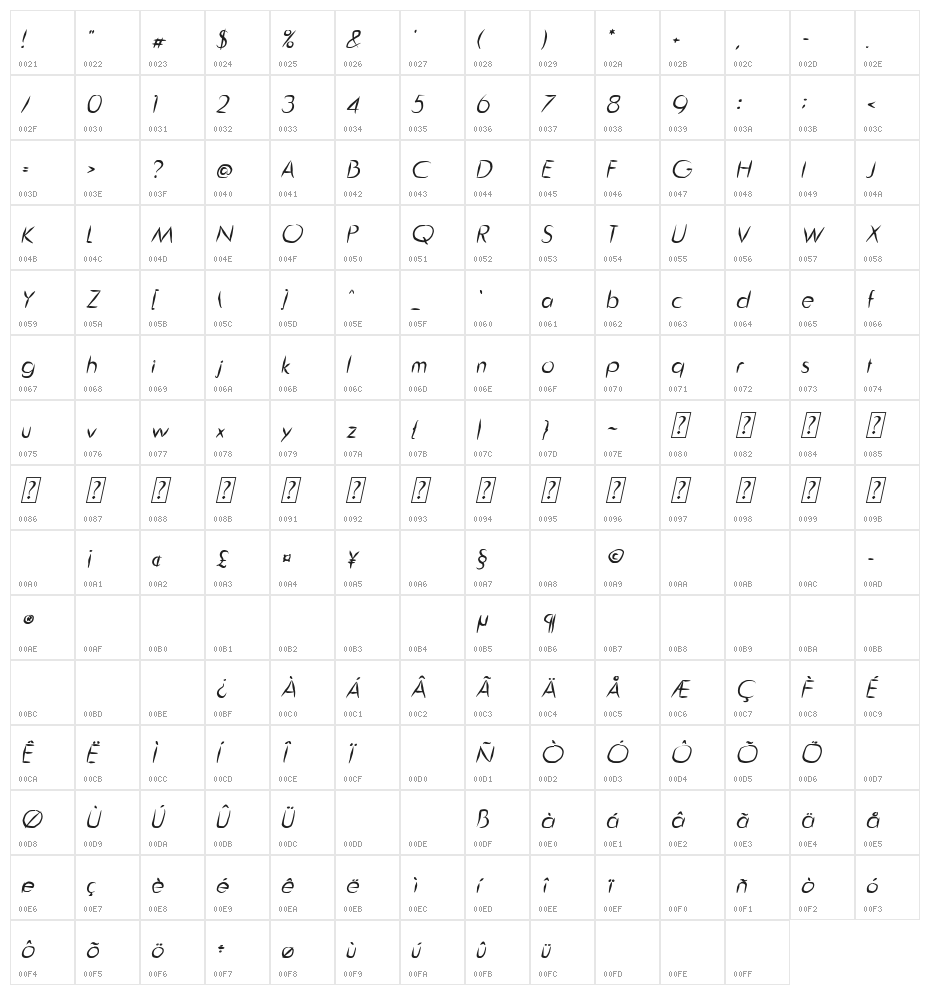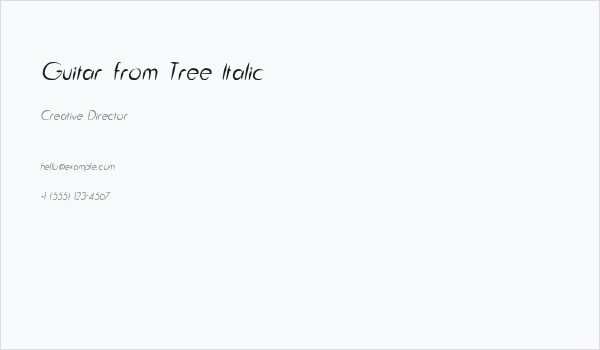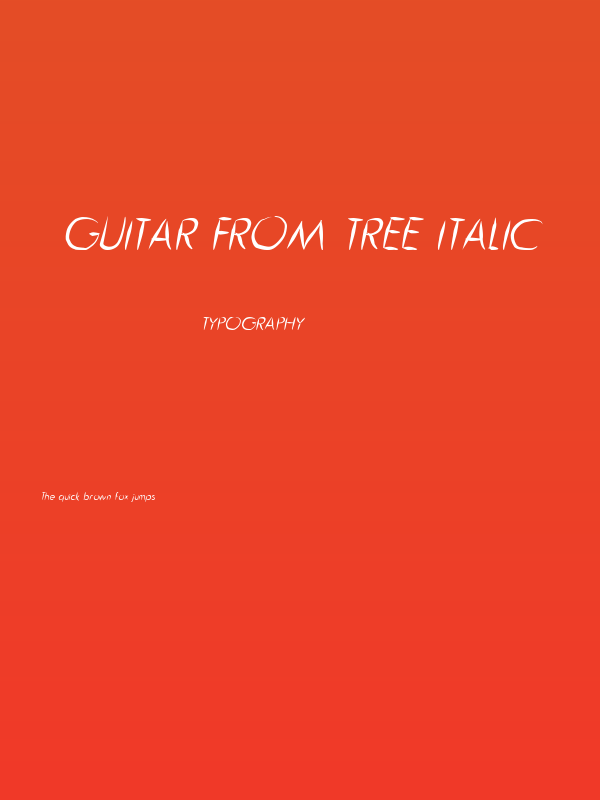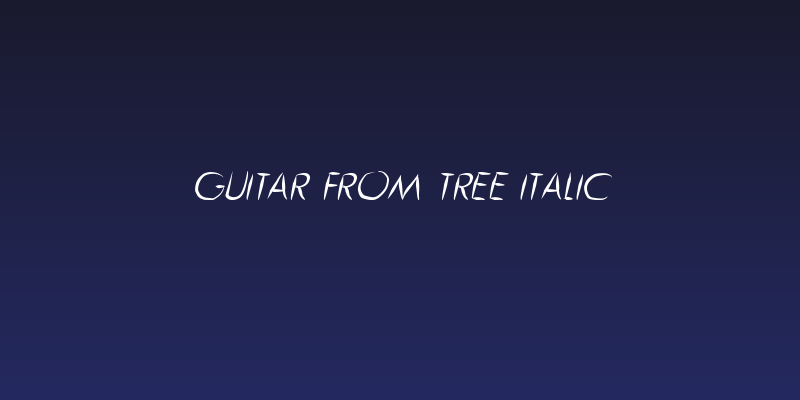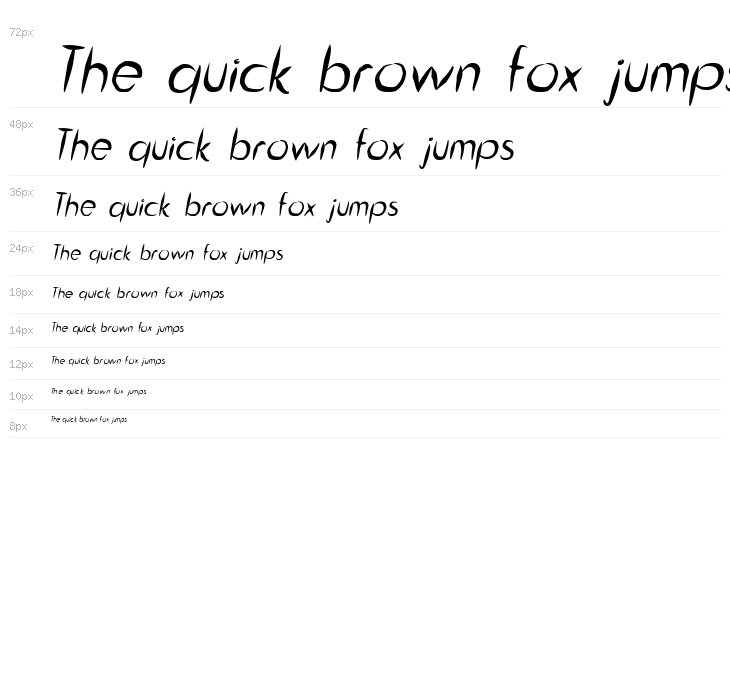
Guitar from Tree Italic Font
Guitar from Tree Italic Description
This font features a dynamic and flowing italic style, characterized by its smooth, curved lines and slightly elongated letterforms. The strokes vary in thickness, creating a sense of movement and energy. The uppercase letters are bold and assertive, while the lowercase letters maintain a consistent flow, enhancing readability. The numerals are distinct and well-balanced, complementing the overall aesthetic. Special characters are thoughtfully designed, maintaining the font's cohesive look. This font is ideal for projects that require a touch of elegance and creativity.
| Use Case | Logos, Invitations, Artistic Posters |
| Proposed Projects | Ideal for creative projects such as logos, invitations, and artistic posters. |